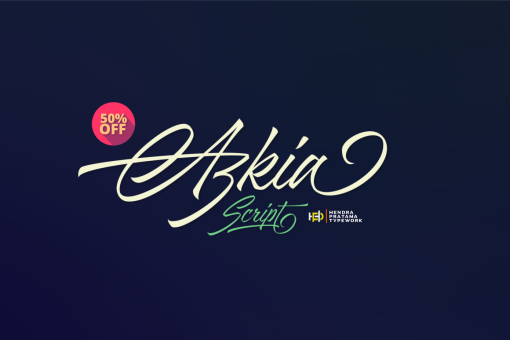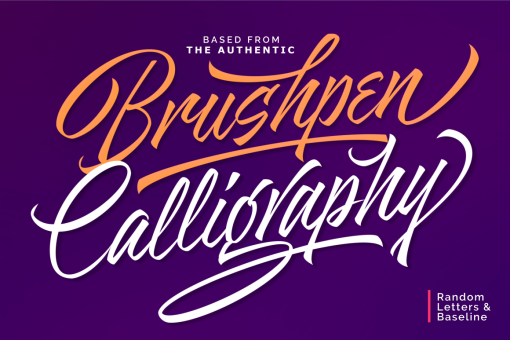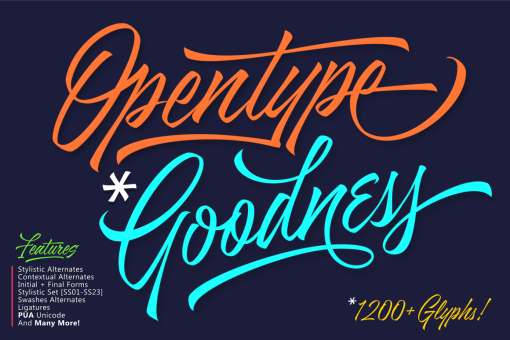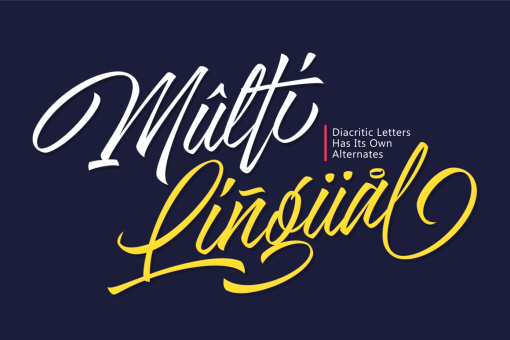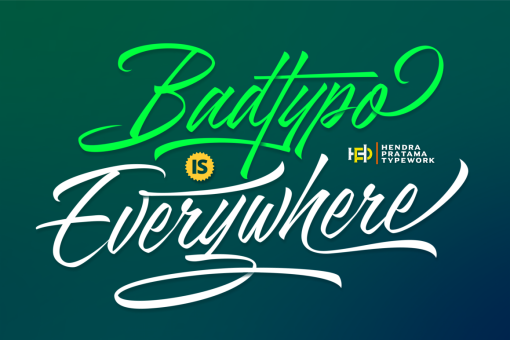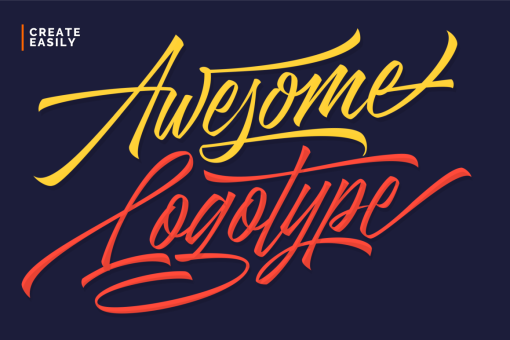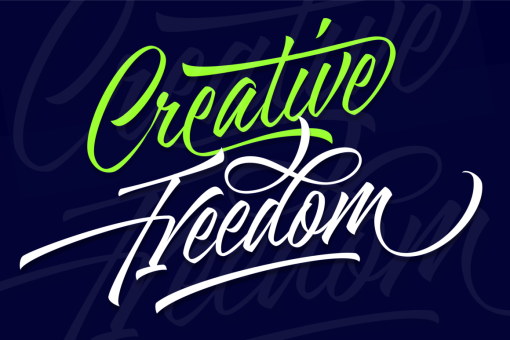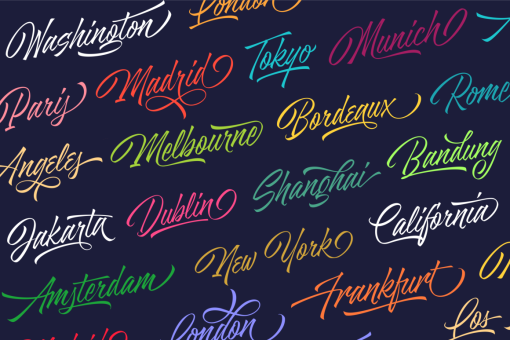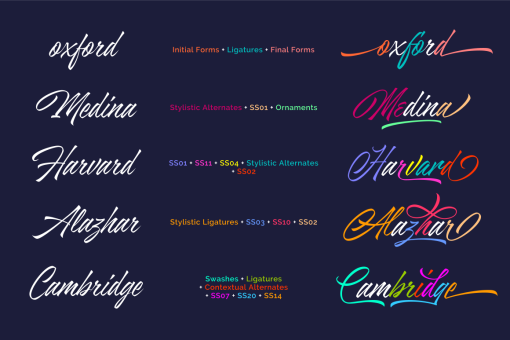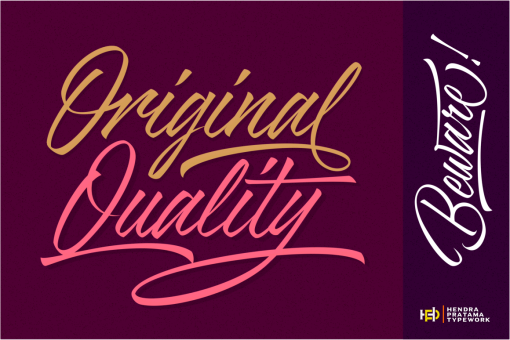
Azkia Script Pro
Azkia Script is a typeface made from many variations of brushpen calligraphy exercises. Rough Sketches on paper and redraw all the letters smoothly in computer. With more than 1200 Glyphs , this font was packed with large OpenType Features Table. The features includes: Stylistic Alternates, Swashes, Ornament, Contextual, Stylistic Set [SS01-SS23] , PUA Unicode and many other alternate character to choose. Please see the preview image for details.
Azkia Script is a useful typeface, digitally crafted with handlettering style. Support over 40 Basic Latin International Languange, even diacritics letters has its own alternates.
Azkia Script supports the following languages: Albanian, Basque, Breton, Chamorro, Danish, Dutch, English, Finnish, French, Frisian, Galician, German, Italian, Malagasy, Norwegian, Portuguese, Alsatian, Arapaho, Arrernte, Aymara, Bislama, Cebuano, Corsican, Fijian, French_creole, Genoese, Gilbertese, Greenlandic, Haitian_creole, Hiligaynon, Hmong, Hopi, Ibanag, Iloko_ilokano, Indonesian, Interglossa_glosa, Interlingua, Irish_gaelic, Jerriais, Lojban, Lombard, Luxembourgeois, Manx, Mohawk, Norfolk_pitcairnese, Occitan, Oromo, Pangasinan, Papiamento, Piedmontese, Potawatomi, Rhaeto-romance, Romansh, Rotokas, Sami_lule, Samoan, Sardinian, Scots_gaelic, Seychelles_creole, Shona, Sicilian, Somali, Southern_ndebele, Swahili, Swati_swazi, Tagalog_filipino_pilipino, Tetum, Tok_pisin, Uyghur_latinized, Volapuk, Walloon, Warlpiri, Xhosa, Yapese, Zulu, Latinbasic, Ubasic.
Wide range possibilities to create unique typography with this font; Logotype, Book Titles, Poster, or just simple quotes design for t-shirt.